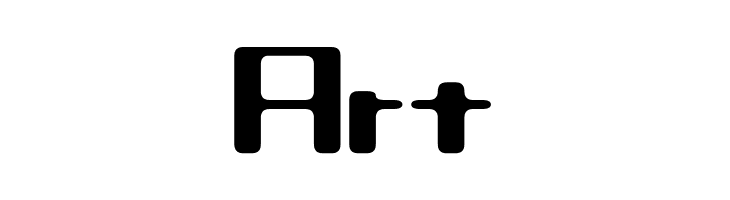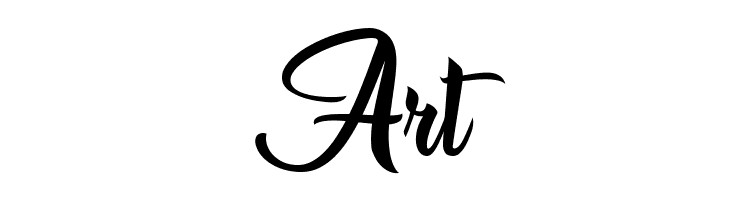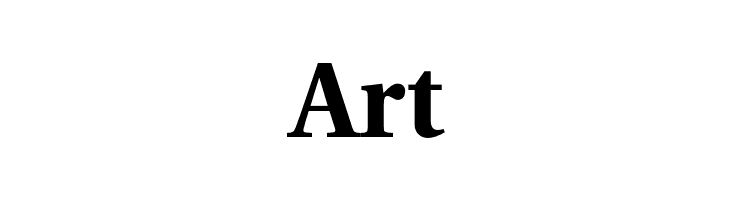
A bold, expressive script font with dynamic strokes and a traditional yet modern appeal.
A bold, geometric font with a modern, futuristic style and uniform stroke width.
A bold, modern font with strong, thick strokes and a slightly condensed appearance.
A bold, italic serif font with a classic and elegant style.
An elegant, flowing script font with ornate, cursive letterforms.
A bold, condensed font with a geometric and modern style.
A modern blend of Roman and Uncial styles with bold, sweeping curves and sharp serifs.
A bold, decorative font with vintage and western influences.
A bold, impactful font with thick strokes and tight spacing, perfect for strong visual statements.
A bold serif font with strong, authoritative strokes and classic design.